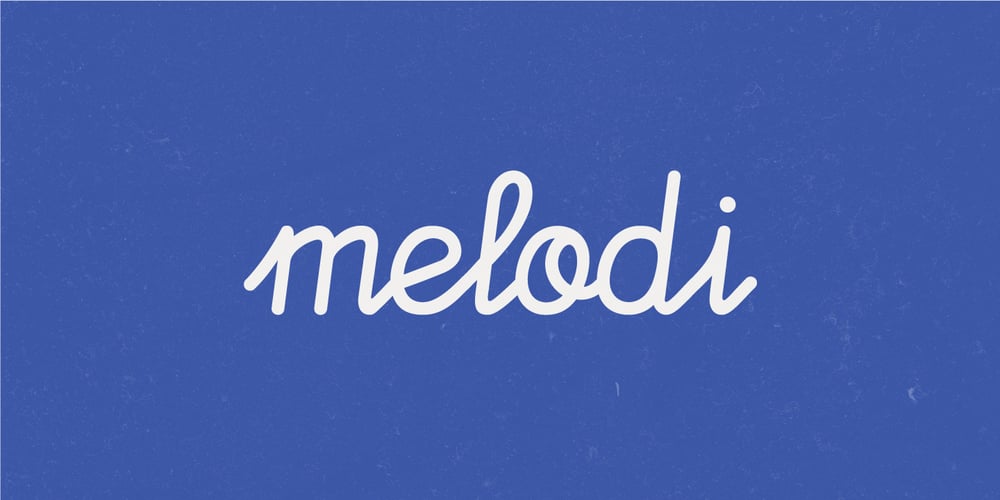
Melodi Font Family was designed by Diego Berakha and published by Diego Berakha. Melodi contains 1 styles and family package options. Melodi is the result of years of working with hand made types on my designs. Every time I draw the letters and words that I need for every design piece. One day I decided to go serious and make a real type of it and “Melodi” is the result of this work. It’s a calligraphic font, built using a regular stroke, and carefully crafted to have nice joins between all the letters. It has some playful but stylish capitals that brings lot of personality to the font. It work super nice either in lowercase writing as in all-caps texts. It looks specially good on lists of words or small sentences. Melodi is a playful but very versatile font, it can be used in lots of different scenarios. From creating a logo, writing the tittles of a catalogue or use it in a poster combined with other types (it work really well as counter point of more classical types) to motion graphics animations or advertising work. It can be cute but it also can do hard work!